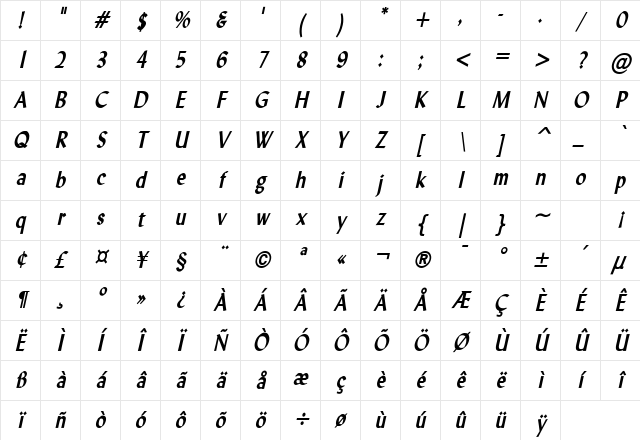
Complete Lynda Condensed Bold Italic glyph index. Displaying only characters natively supported by Lynda Condensed Bold Italic font.
Lynda Condensed is a composed and adaptable typeface that performs quietly and consistently across a wide range of design contexts. The slanted form adds forward momentum and visual energy. Its bold stroke weight gives it real presence on the page. Its narrow stance lets it pack a punch even in space-constrained designs.
Pro Tip: Use Lynda Condensed for emphasis, pull quotes, and subheadings where its slanted energy can add rhythm to the layout.